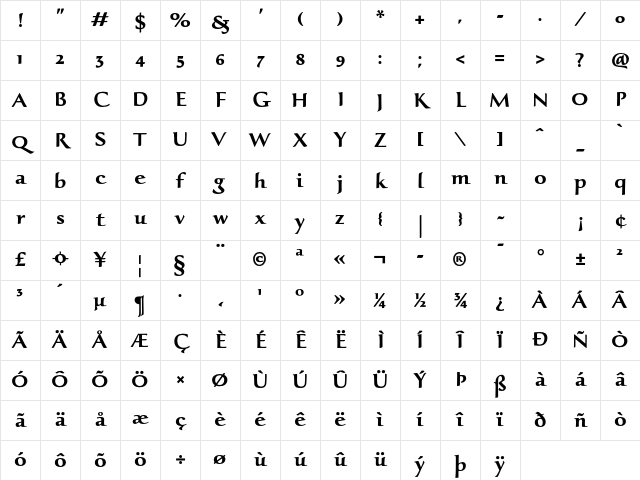
Oxalis Std Bold Free Font
Oxalis Std Bold
Oxalis Std Family
Design Context for Oxalis Std
Oxalis Std is a composed and adaptable typeface that performs quietly and consistently across a wide range of design contexts. Its bold stroke weight gives it real presence on the page.